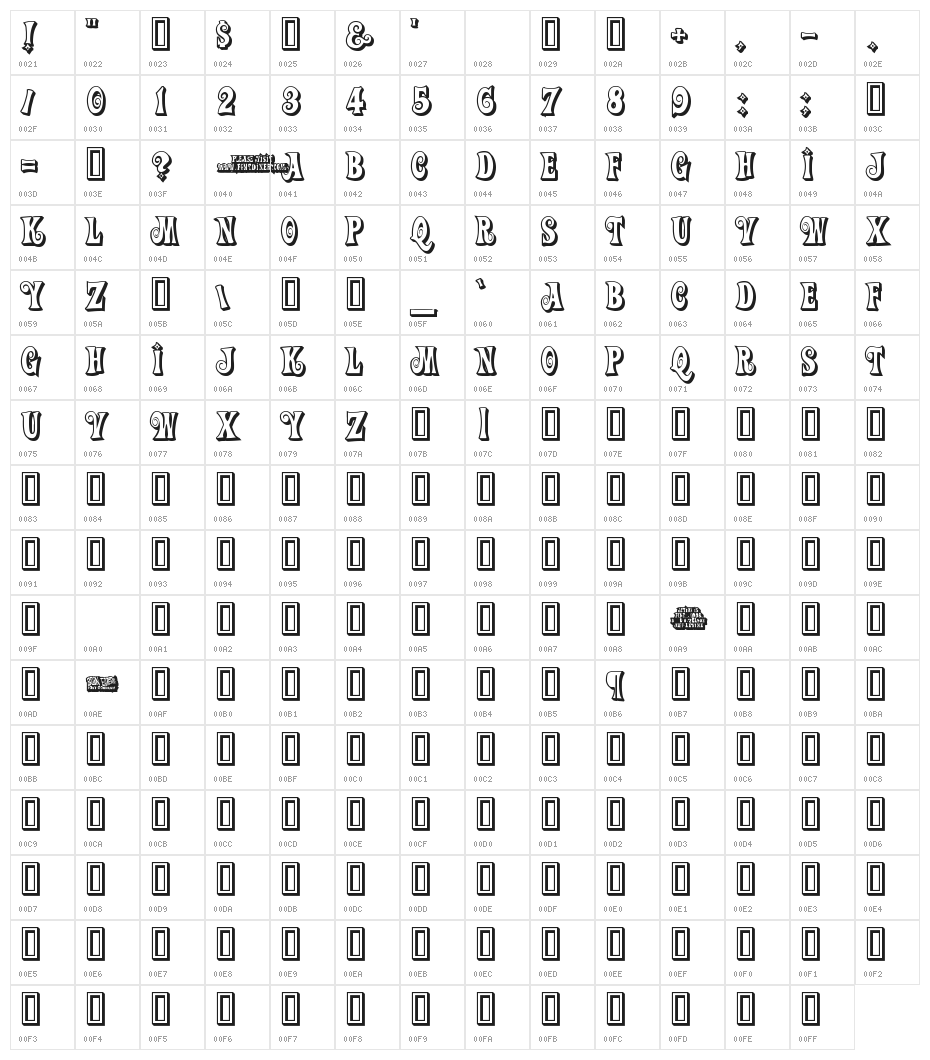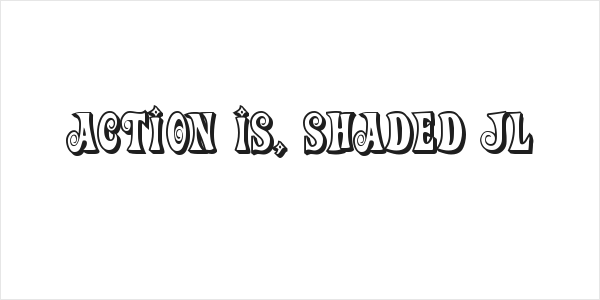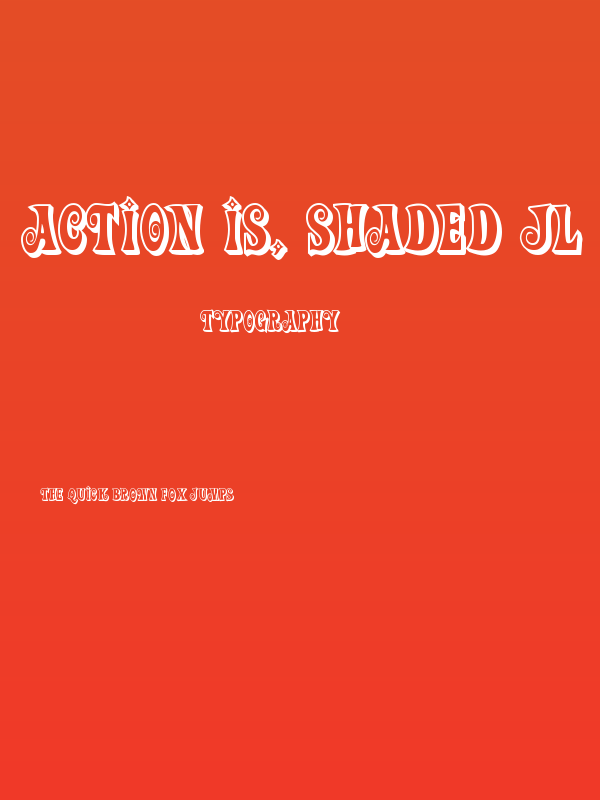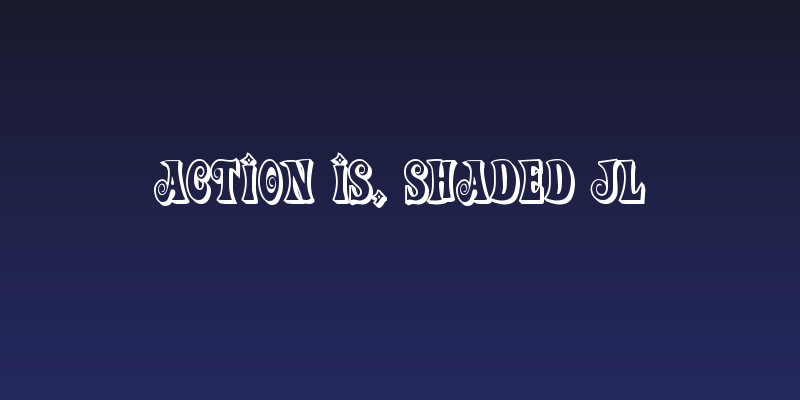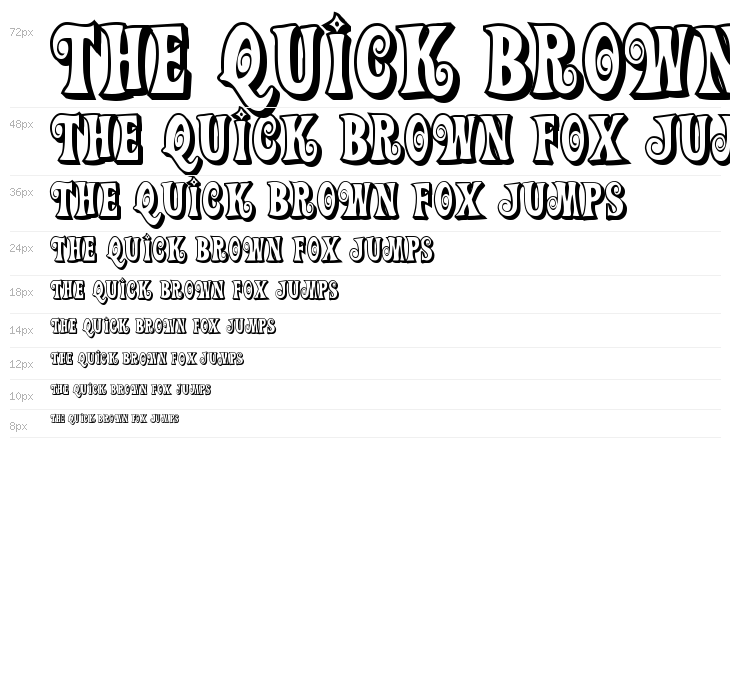
Action Is, Shaded JL Font
Action Is, Shaded JL Description
This font features a bold, decorative style with a playful and dynamic appearance. Each character is outlined with a thick black shadow, giving it a three-dimensional effect. The letters are characterized by their exaggerated serifs and whimsical curves, creating a sense of movement and energy. The uppercase and lowercase letters maintain a consistent style, with the lowercase being slightly smaller but equally bold. The numbers and special characters follow the same design principles, ensuring uniformity across all glyphs. This font is ideal for projects that require a lively and eye-catching typeface.